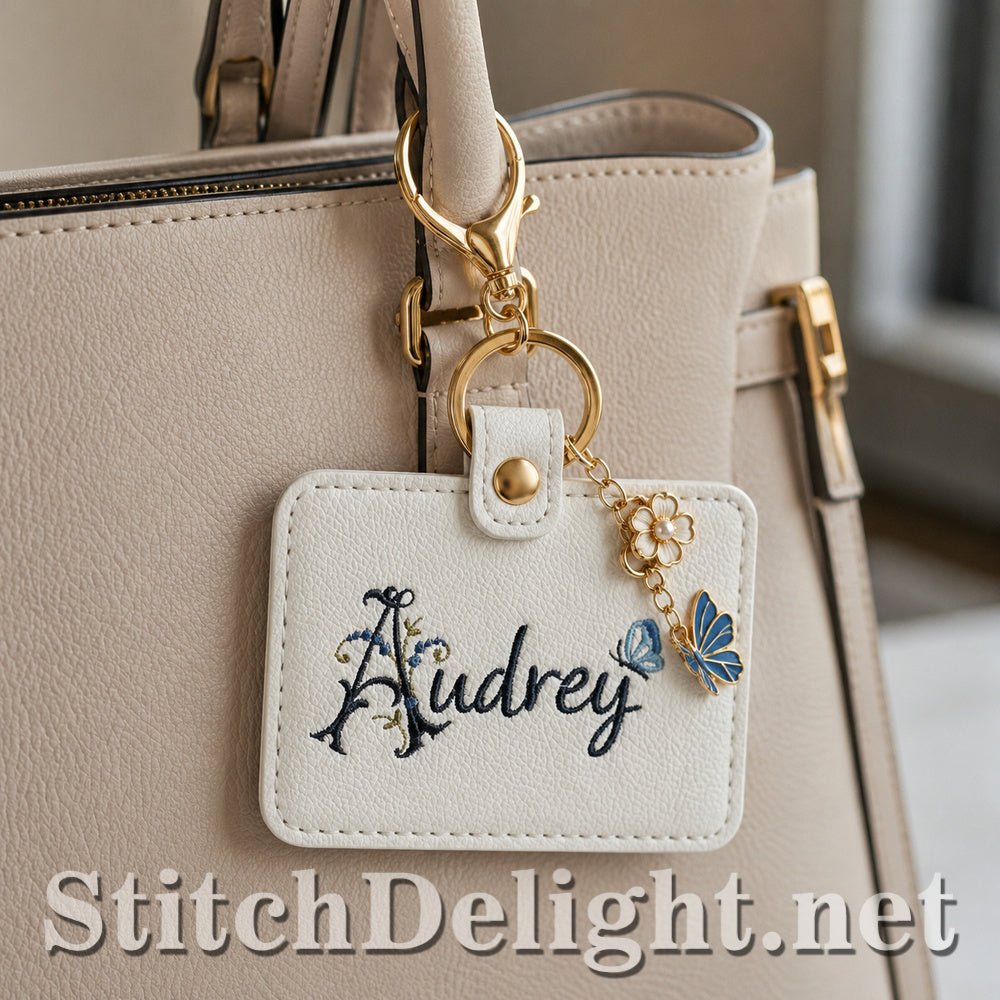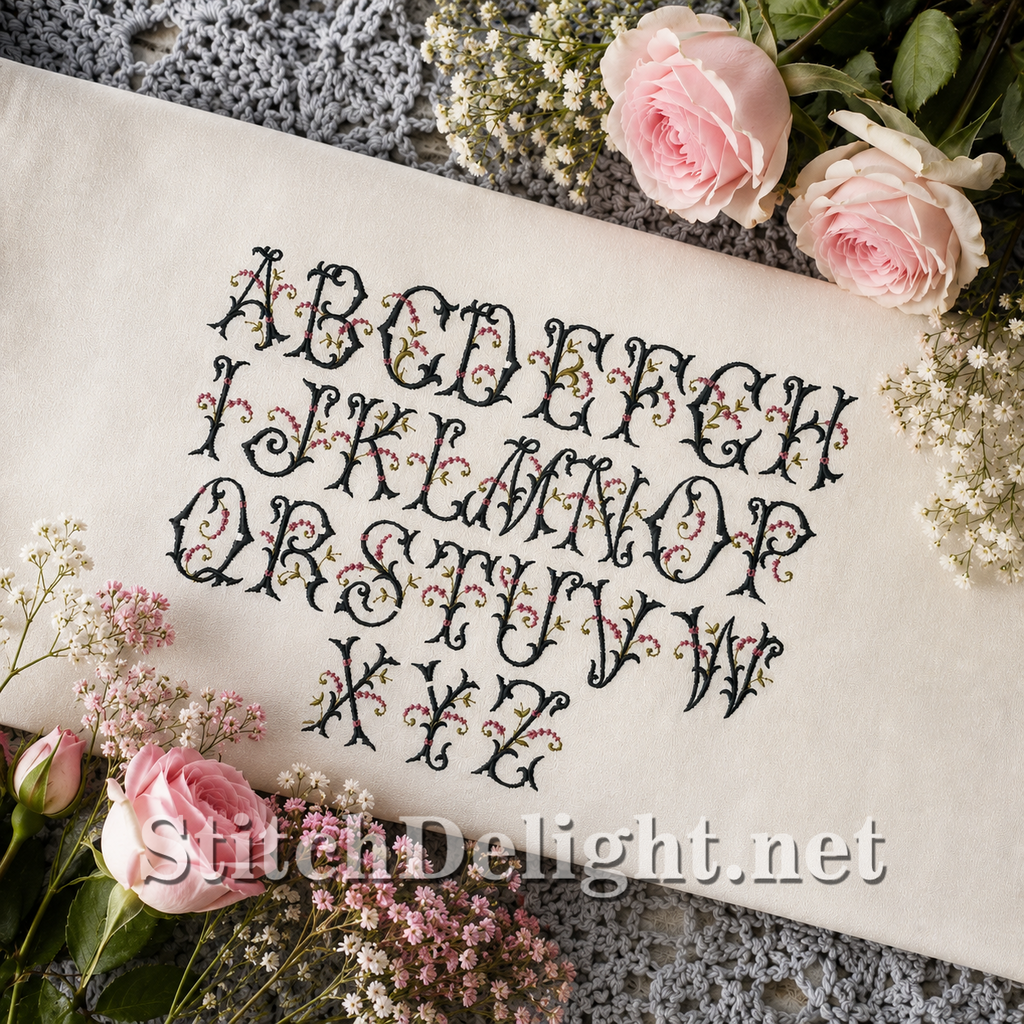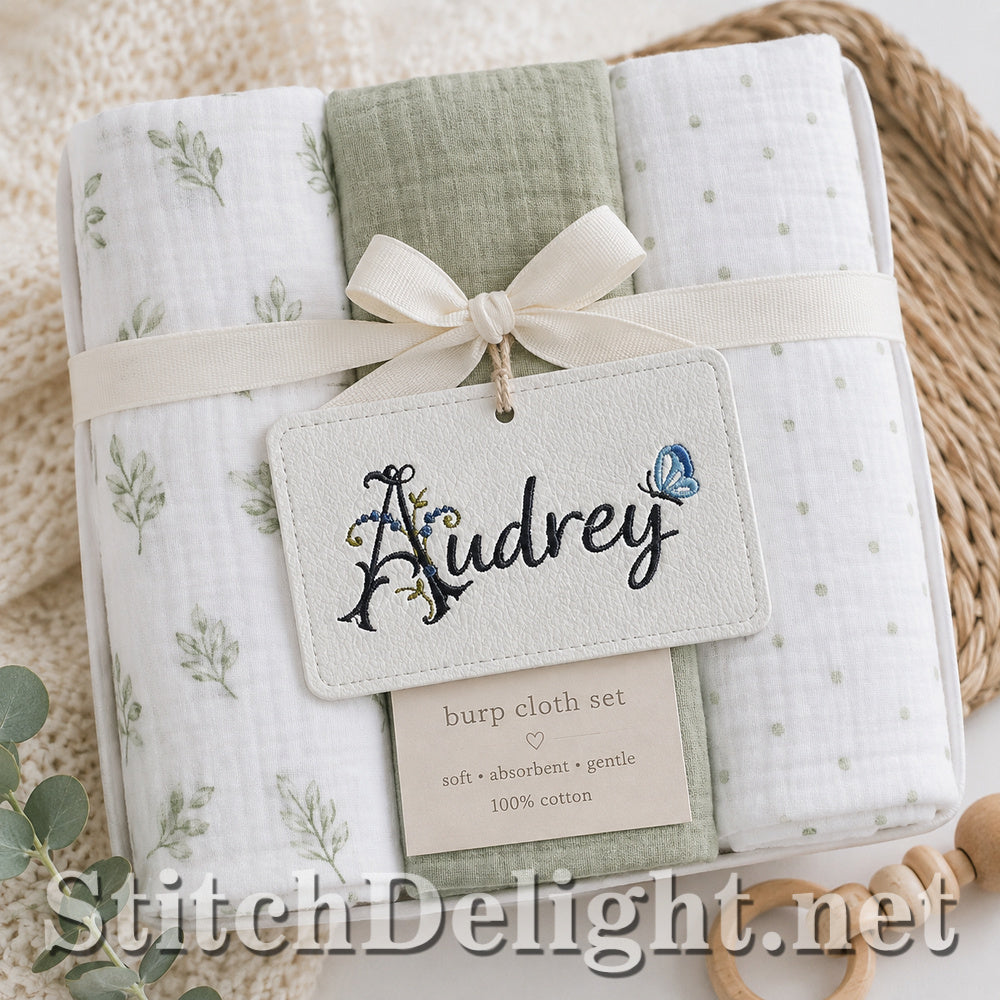
SDS4653 Tiny Flower Spray Font
A beautifully ornate floral embroidery font featuring elegant, vintage-inspired letterforms intertwined with delicate curling vines and tiny sprays of flowers. The intricate black lettering is accented with soft blush blossoms and subtle olive-green foliage, creating a romantic heirloom look that is perfect for names, monograms, personalised gifts and delicate decorative embroidery.
And importantly, it has that "pretty without being overly sweet" quality — sophisticated enough for adult projects, but still lovely for baby gifts, handbags, linens, towels and personalised accessories.
The instructions also describe the matching SDS4992 Aurora Font as a perfectly sized companion font, while this style is designed at just 1.85" letter height, making it particularly suitable for smaller personalised projects.